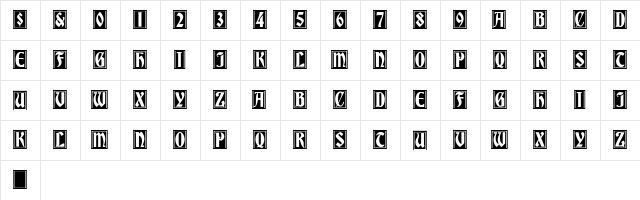
Germania Versalien Regular
Design Context for Germania Versalien Typeface
Germania Versalien is a composed and adaptable typeface that performs quietly and consistently across a wide range of design contexts.